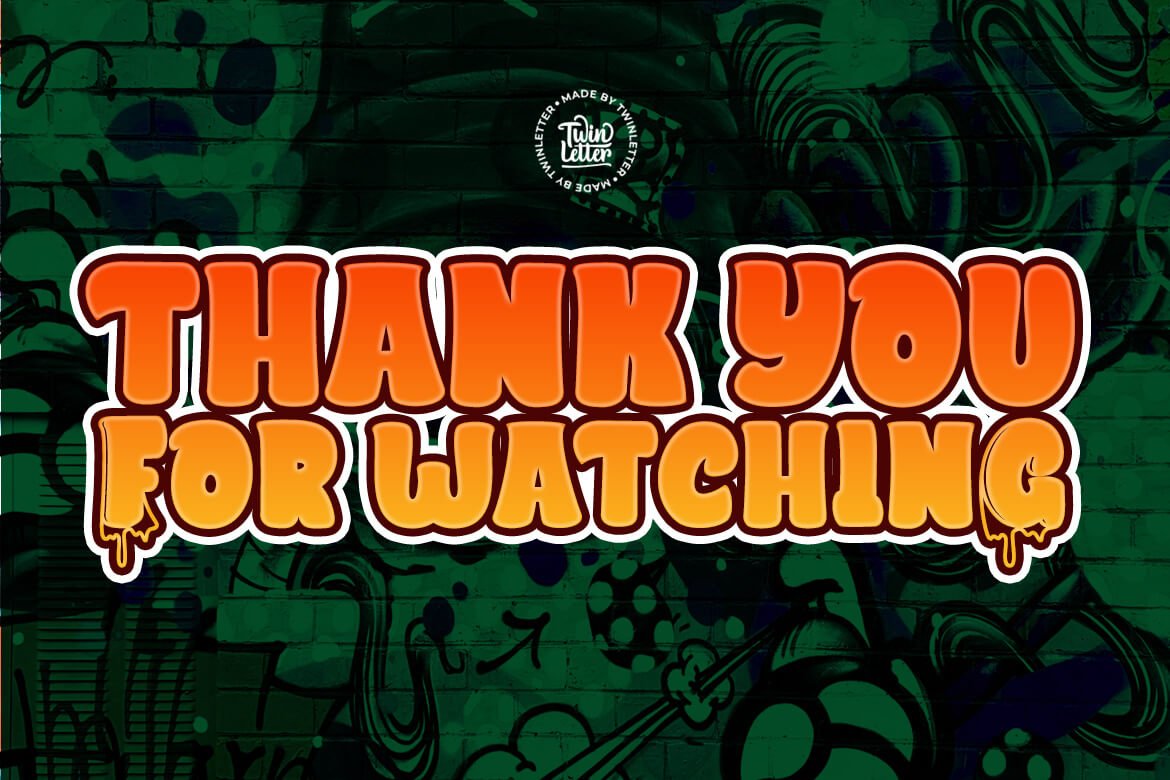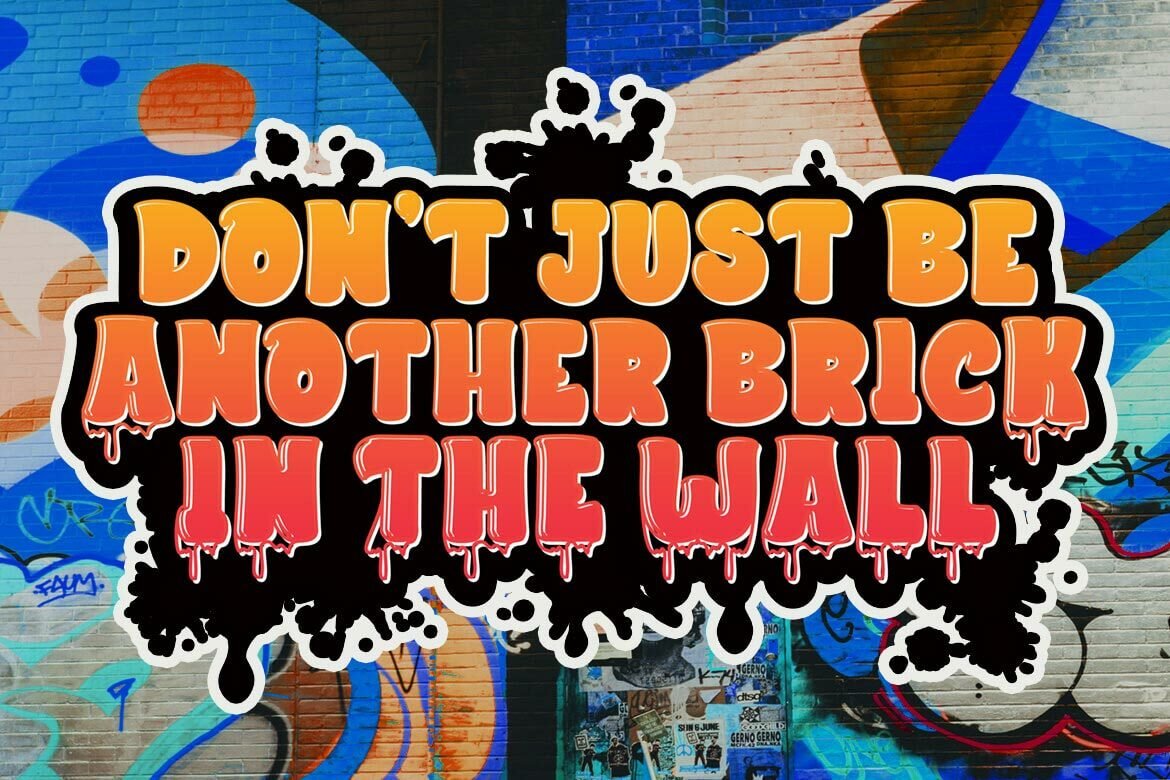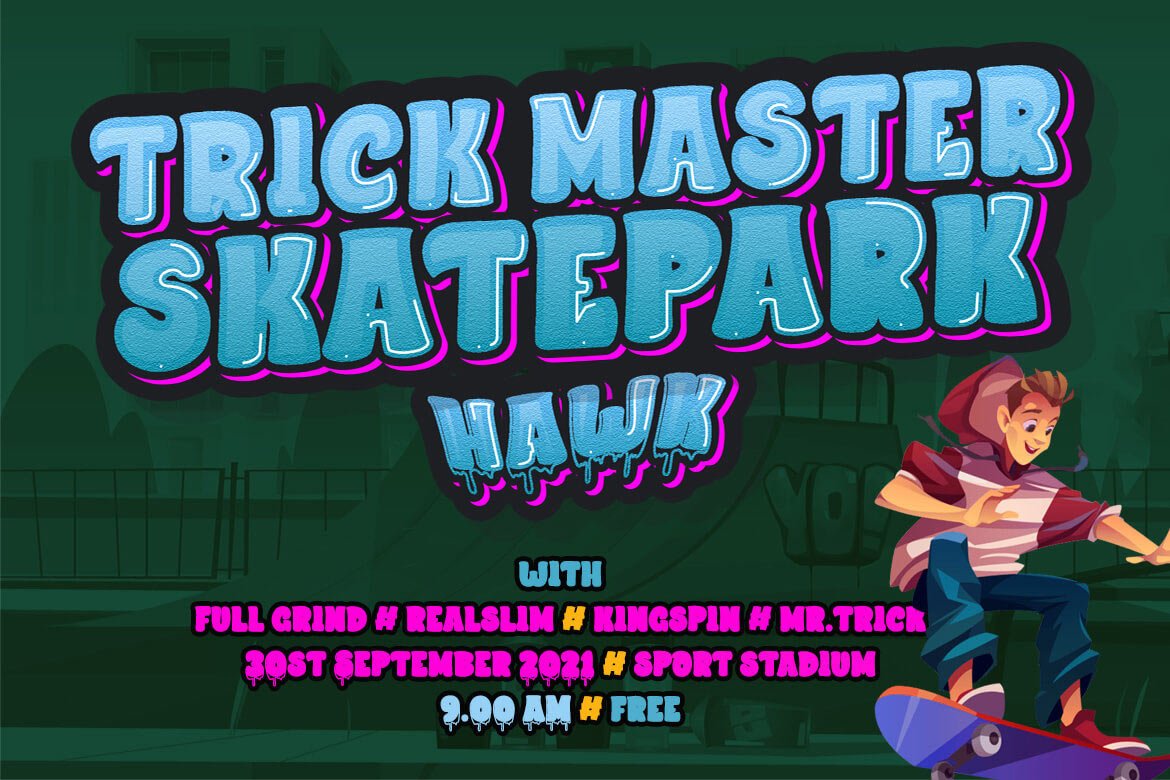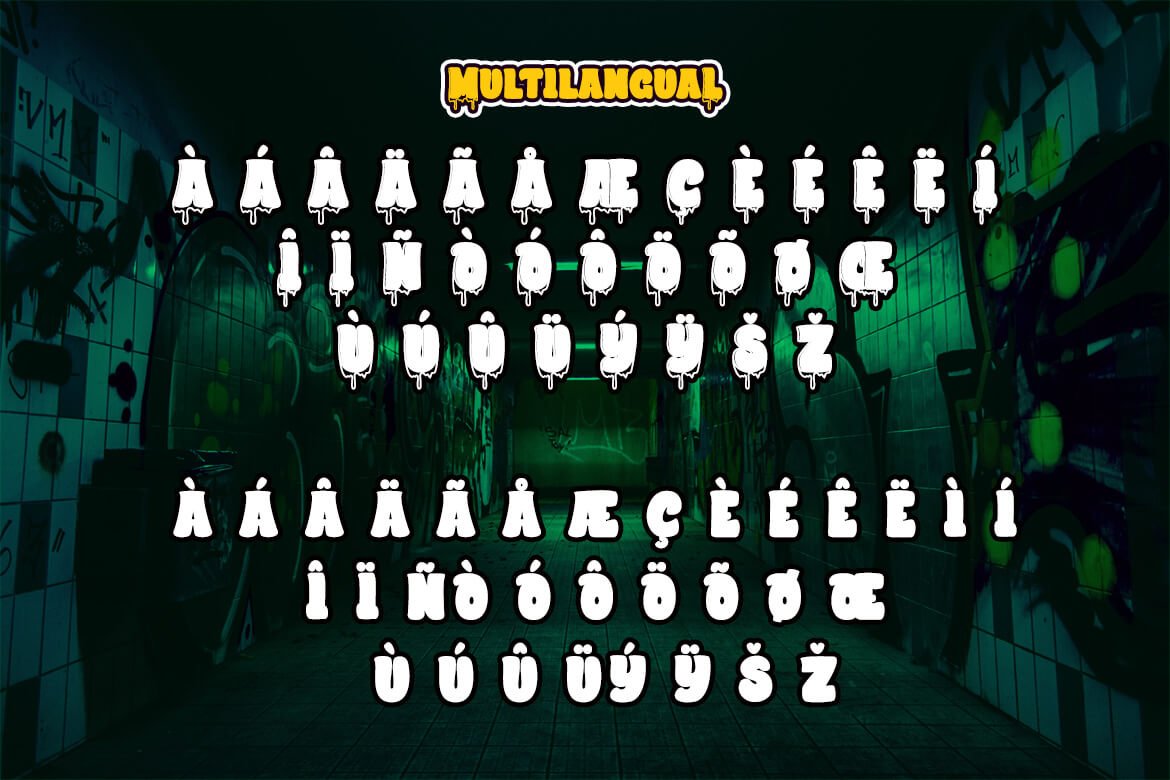
Keway is a graffiti font that prioritizes neatness and harmony while maintaining a distinct personality.
There is an option to use capital or lowercase letters, which will make it much easier for you to develop projects that stand out to others. Your project will seem different, elegant, charming, and passionate if you use this font, and everyone who sees it will think it’s a professional, quality, high-quality, and high-class project.
This graffiti font is great for product logos, poster titles, headlines, packaging, film titles, logotypes, gorgeous writing, and trendy graffiti designs, among other things.
Of course, if you utilize this font in your numerous creative projects, they will be perfect and outstanding.
Use this typeface right away for your one-of-a-kind and remarkable projects.